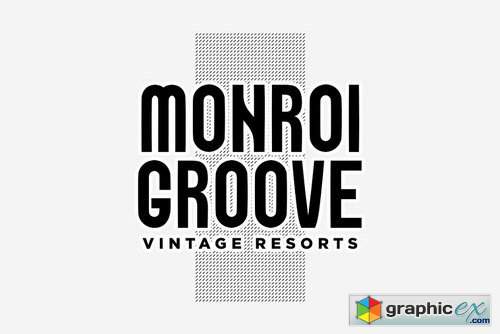
VANGUARD - NeoRetro Display Typeface
VANGUARD is a unique typeface inspired from the classic Neo Retro style but with an added touch of modernism bringing a balance in it's design.